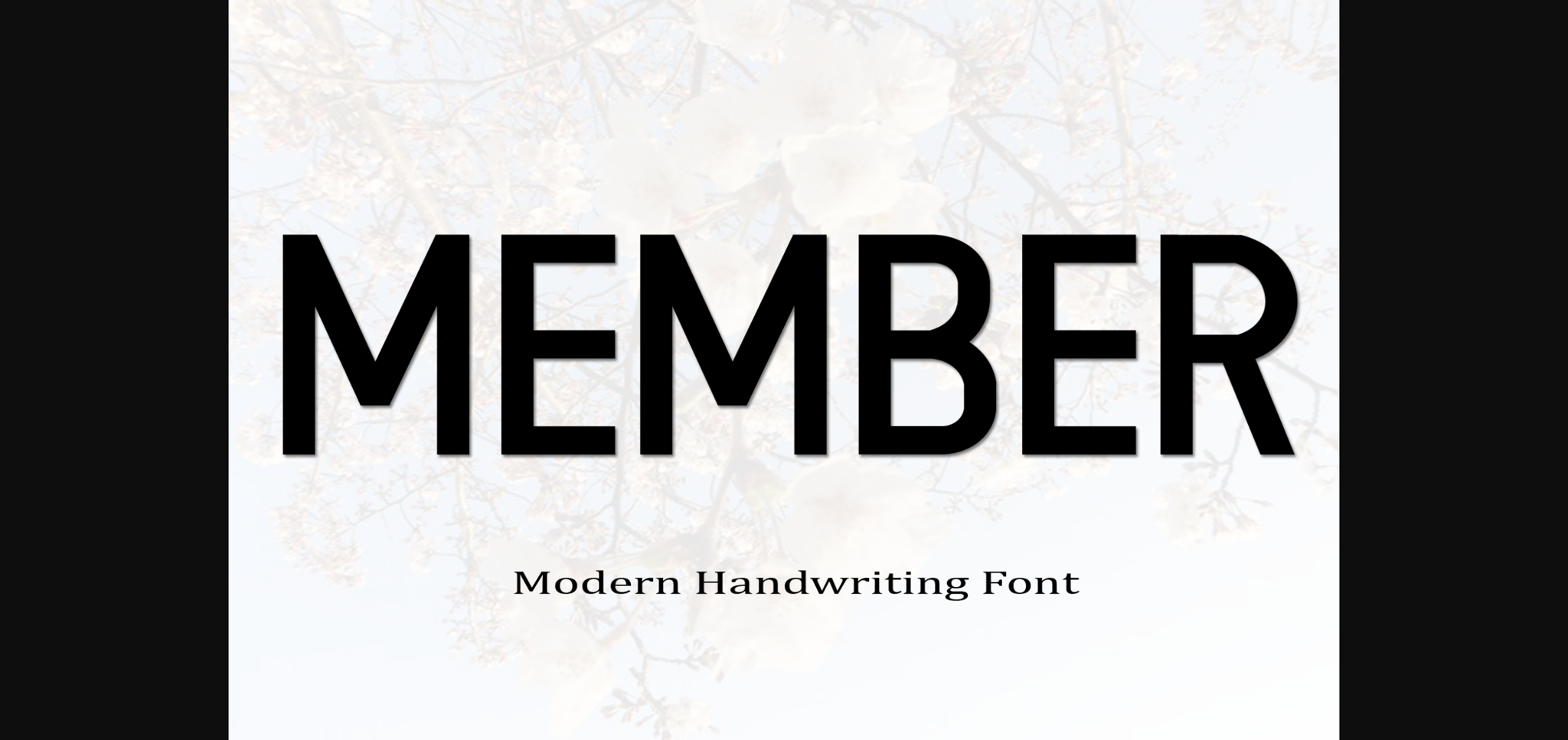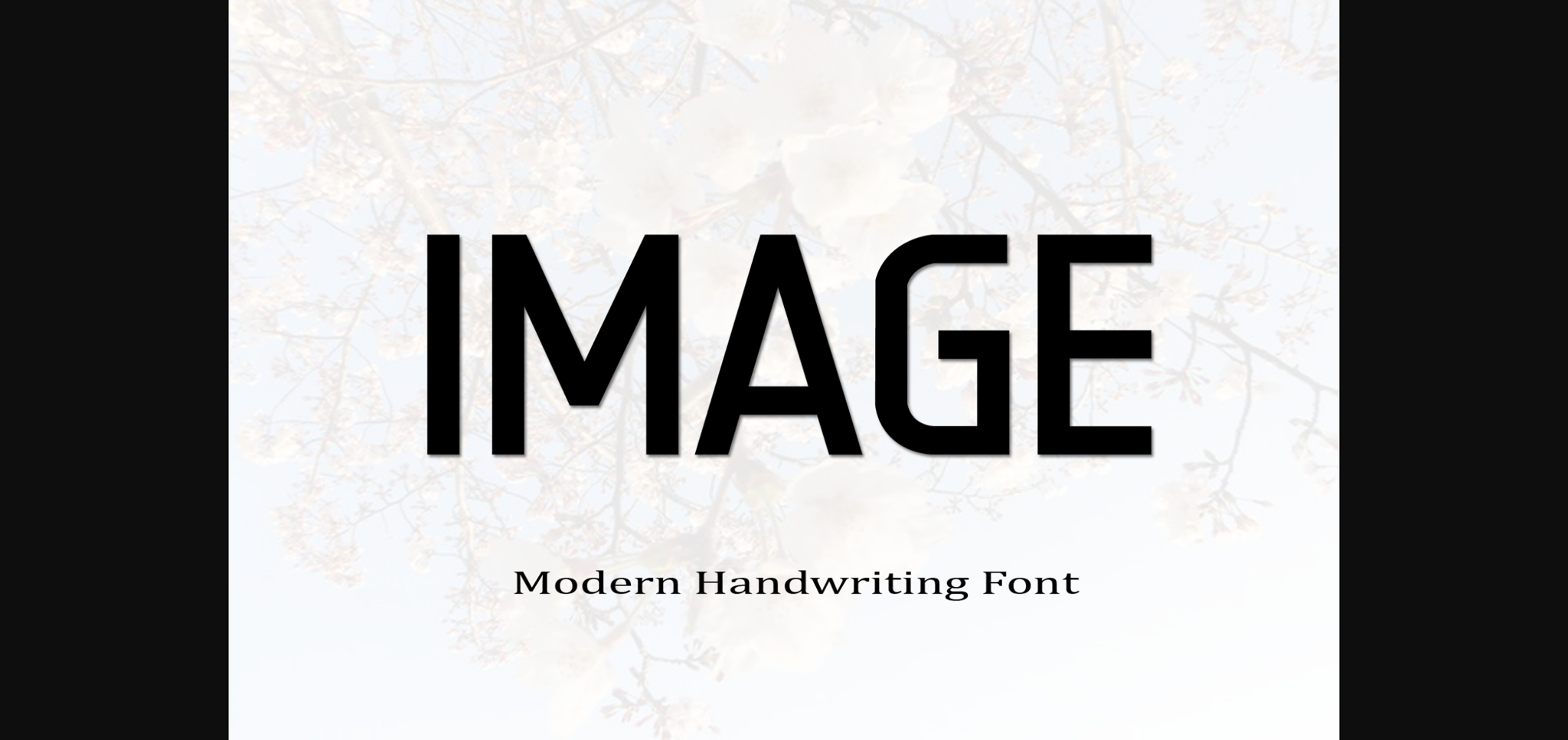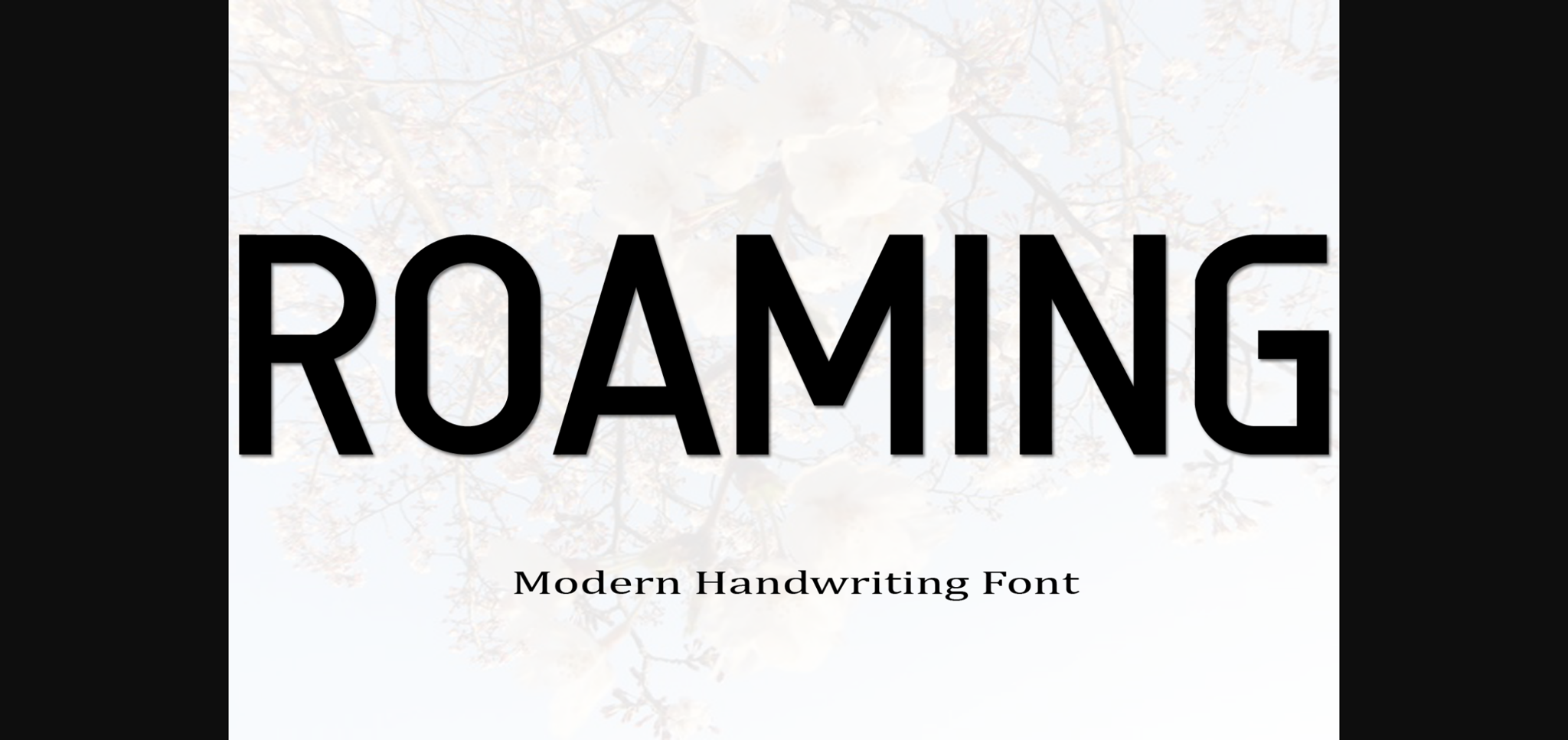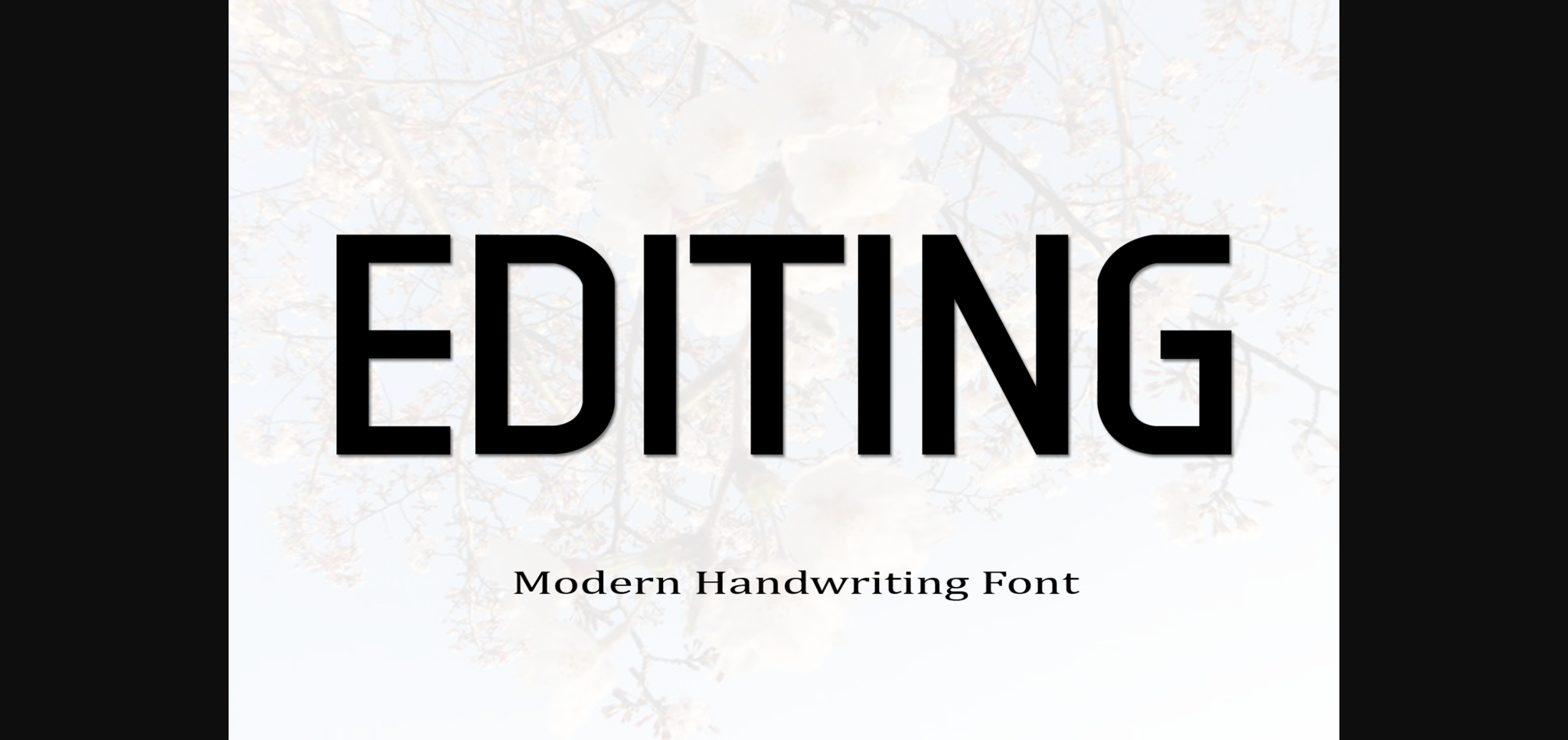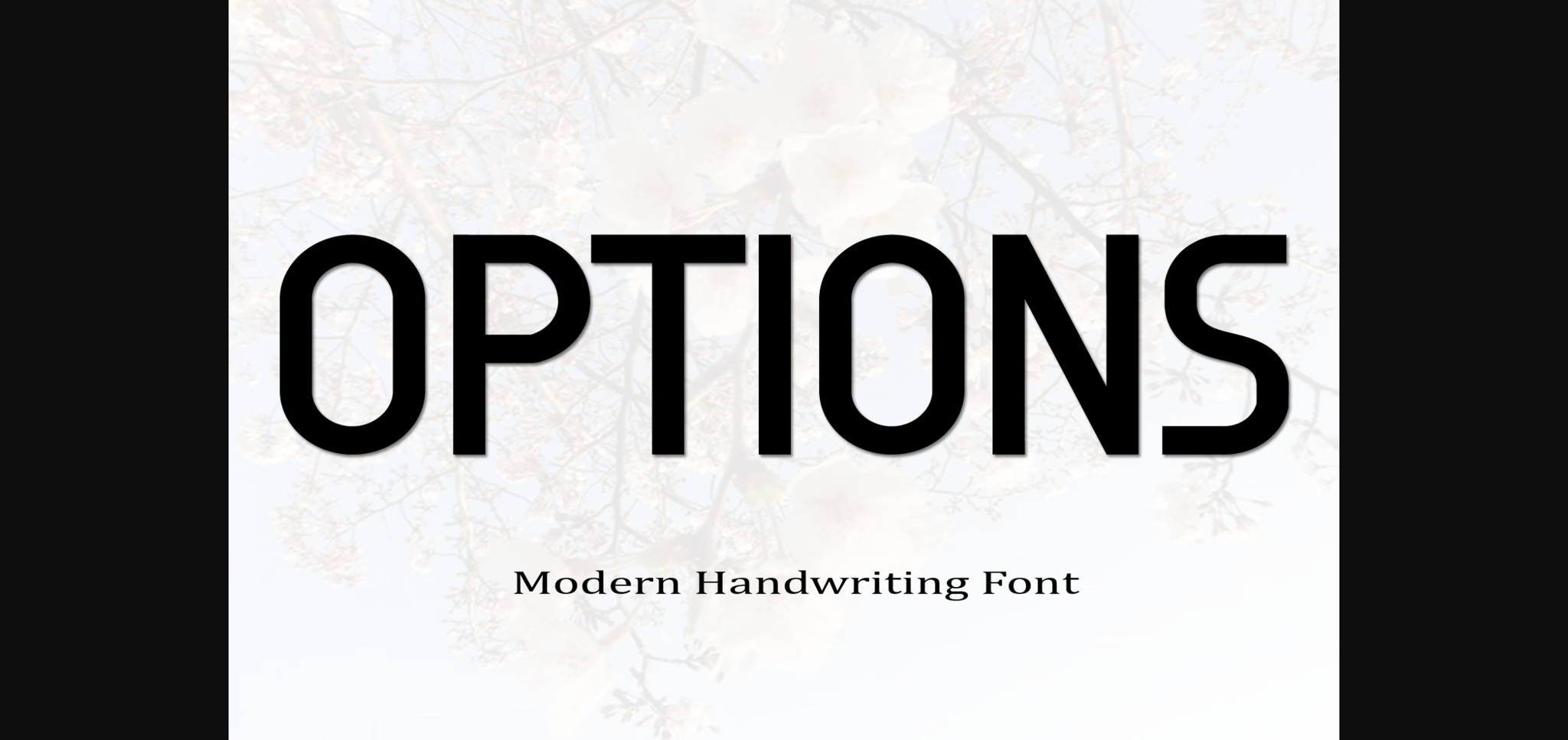
Member Font
About Member Font
Member is a classic and simple handwritten font. It has beautiful and well-balanced characters and as a result, it matches a wide pool of designs.